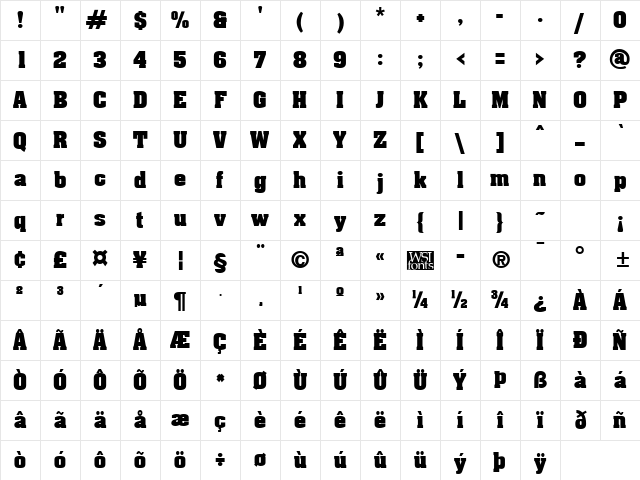
Acklin Regular
Acklin Family
Acklin Regular
Design Context for Acklin
Acklin is a composed and adaptable typeface that performs quietly and consistently across a wide range of design contexts.